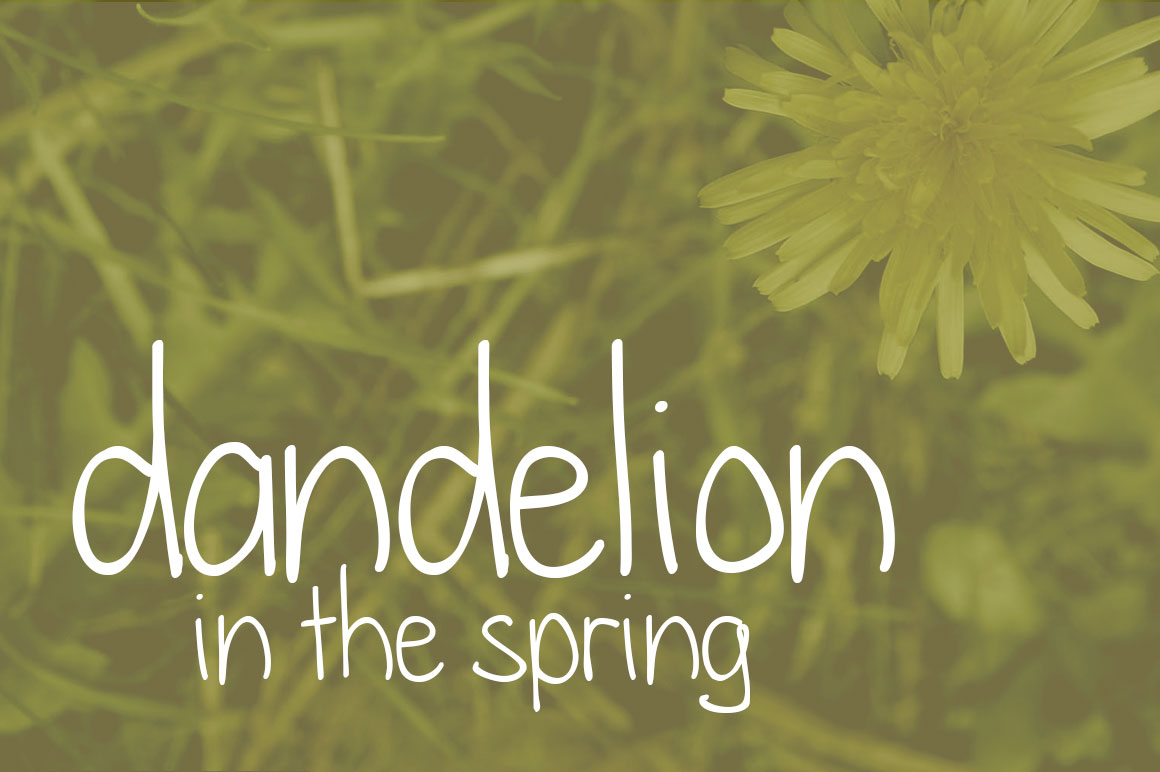
HomeScript FontsDandelion in the Spring Font Script Fonts Dandelion in the Spring Font FacebookXPinterestWhatsApp About Dandelion in the Spring Font Dandelion in the Spring is a sweet and simple handwritten font. Great for notes! DOWNLOAD ON CREATIVE FABRICAThis font is sold and delivered by Creative Fabrica. Font Canyon may earn a commission if you buy through this link. People also explored Longbranch Pangrango Font Cute Insects Font Birthday Font Summer Vacation Font Moment December Font Faith Grace Font Besties Font Sirikaya Font 308 0 TagsDandelion in the Spring Font Previous articleMcKenna Light FontNext articleCuddlebugs Font LEAVE A REPLY Cancel reply Comment: Please enter your comment! Name:* Please enter your name here Email:* You have entered an incorrect email address! Please enter your email address here Website: Save my name, email, and website in this browser for the next time I comment. Personal Use Free Goldsaber Personal Use Free Read more about this font Sellena Brush Font Personal Use Free Read more about this font Penelope Brush Script Font Personal Use Free Read more about this font Micahel Personal Use Free Read more about this font BLOG Using Fonts in Digital Marketing: Tips to Strengthen Your Brand Identity In the realm of digital marketing, every visual element plays a crucial role in shaping a brand's identity, and fonts are no exception. The... Best Fonts for T-Shirt Design – Top 2025 Picks Free Fonts Risk: Why Free Fonts Can Be Dangerous for Designers Top 10 Handwritten Fonts That Elevate Your Designs